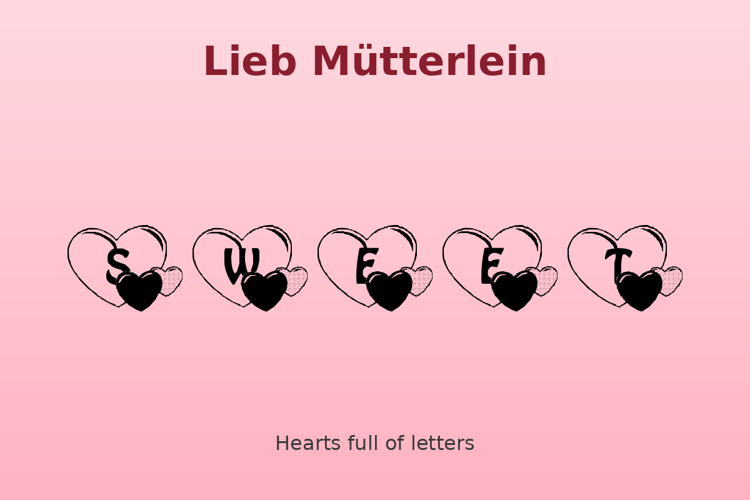
Lieb Mütterlein Font
Letters and numbers nestled in clusters of hearts — a loving alphabet for Valentine's Day, Mother's Day cards, and wedding crafts. Letters, numbers, and punctuation (no period). Free for personal use; emailware — send the designer an email to say thanks.